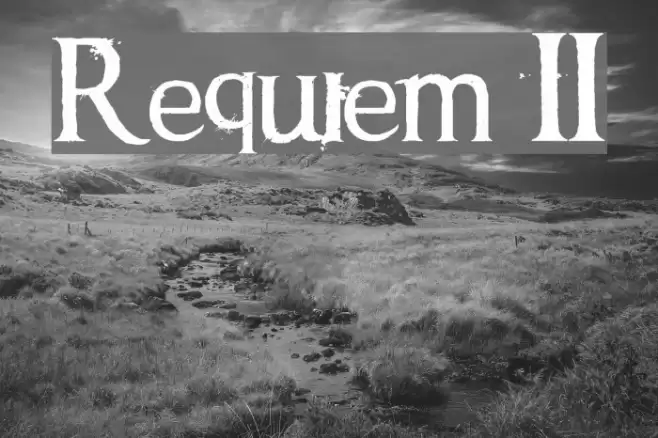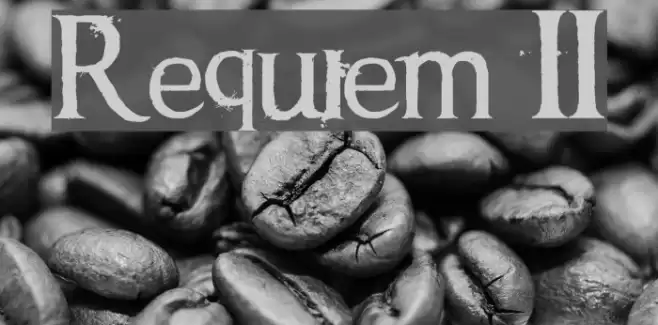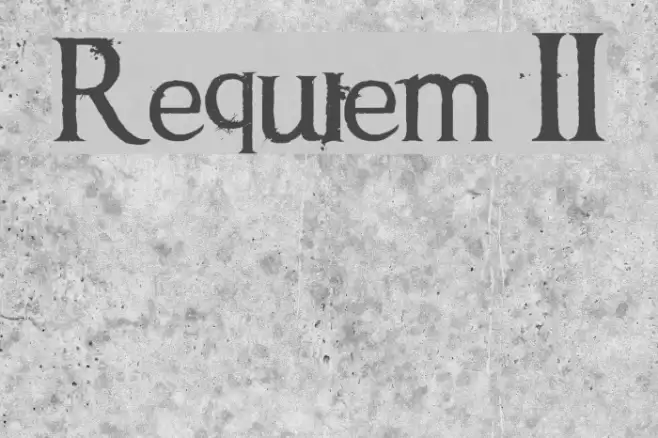
Requiem II Font
Requiem II Description
This font features a distressed, grunge aesthetic with a classic serif structure. The characters are designed with uneven edges and a textured appearance, giving them a weathered and vintage look. The uppercase and lowercase letters maintain a traditional serif form, while the numbers and special characters follow the same distressed style. This font's unique appearance makes it stand out, offering a blend of classic typography with a modern, artistic twist.
A distressed serif font with a grunge, vintage aesthetic from Uncategorized fonts.
- Proposed Projects: Ideal for projects that require a vintage or artistic touch, such as posters, album covers, or branding for creative industries.
- Overall Style: Vintage
- Use Case: Headlines, Logos, Artistic projects